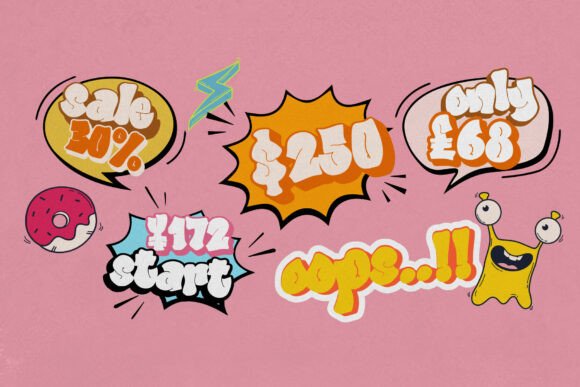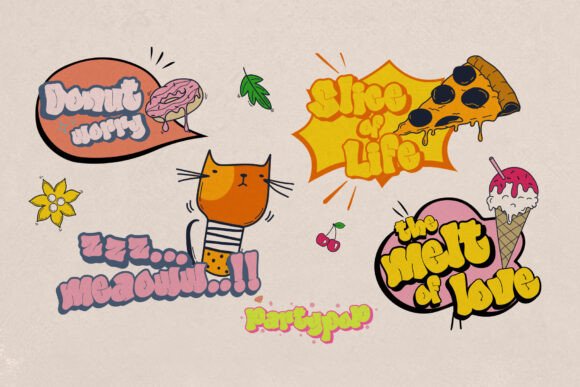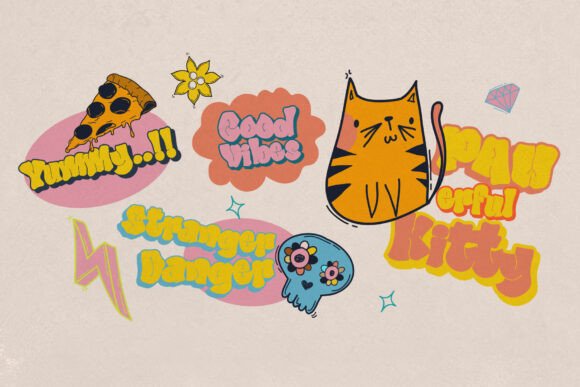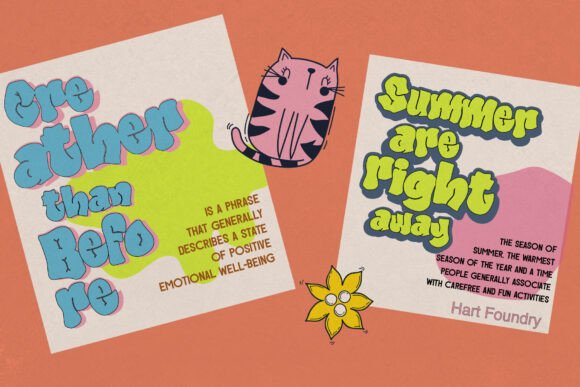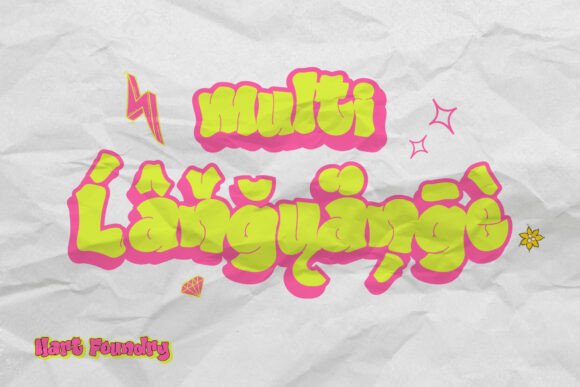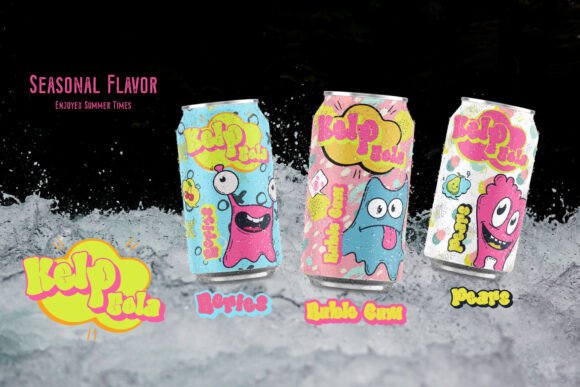
Introduction to Party Pop Font
Remember that one moment when you’re brainstorming ideas for a creative project, and suddenly, a spark of inspiration hits you? For me, it was when I decided to create a font that perfectly captures the essence of a playful party. Introducing the Party Pop Font, a hand-lettered masterpiece that’s sure to bring a dash of whimsy to any design.
As a designer, you’re always on the lookout for unique design resources that can elevate your work. The Party Pop Font is one such treasure that’s perfect for adding a handmade touch to your logos, quotes, art, signs, titles, and more. With its transparent background and high-quality design, this font is a must-have for any creative project.
Key Features of Party Pop Font
- Unique, colorful design elements perfect for creative projects, parties, and celebrations.
- Perfect for designers seeking a fun, playful, and eye-catching design resource for their creative projects.
Honest Review: Party Pop Font
As a designer, I’m always on the lookout for fresh and exciting design resources to elevate my creative projects. The Party Pop Font caught my eye with its vibrant and playful aesthetic, and I was eager to give it a try.
What works well with the Party Pop Font is its ability to add a touch of whimsy to any design. The font’s transparent background makes it easy to layer over images or other design elements, and its high quality ensures that it looks great at any size. ✨ I also appreciate that it’s a free download, making it an accessible design resource for designers of all levels.
- Perfect for creative projects that need a playful touch
However, I do have a few limitations to note. The Party Pop Font is a bit limited in terms of its style options, which may not be ideal for designers who like to experiment with different looks. Additionally, the font may not be suitable for more serious or professional designs. ⚠️
Overall, I think the Party Pop Font is a great addition to any designer’s toolkit. While it may not be perfect, its unique style and high quality make it a valuable design resource for creative projects.
For the best results, use the Party Pop Font in conjunction with a high-quality design resource. Some common use cases include party invitations, social media graphics, and business materials. To get the most out of the font, experiment with different font sizes, colors, and styles to create a unique and eye-catching design.